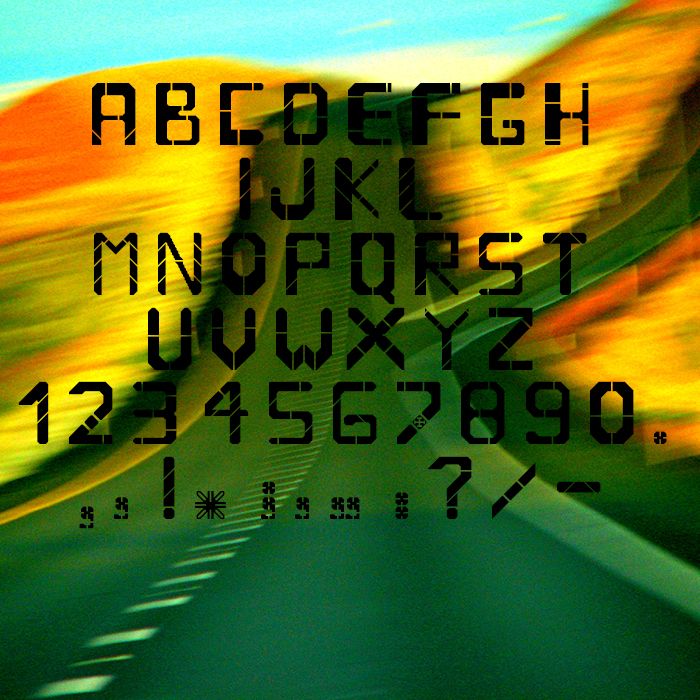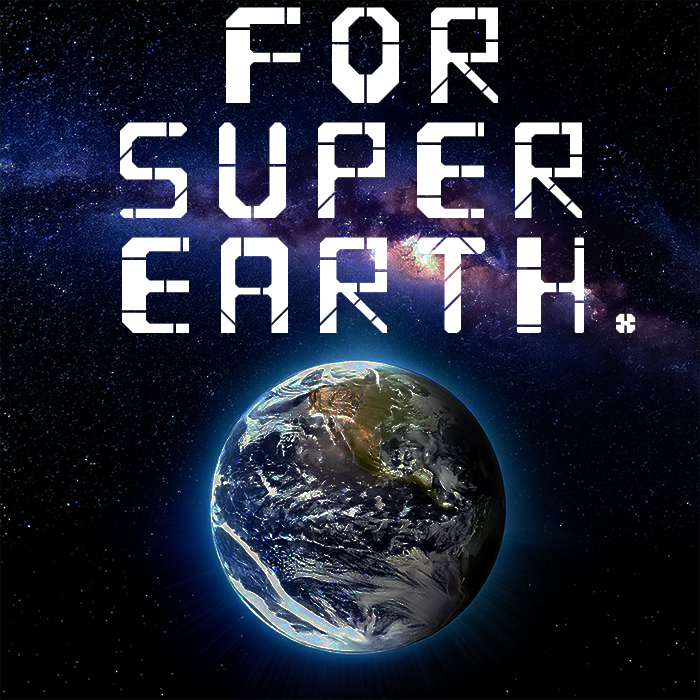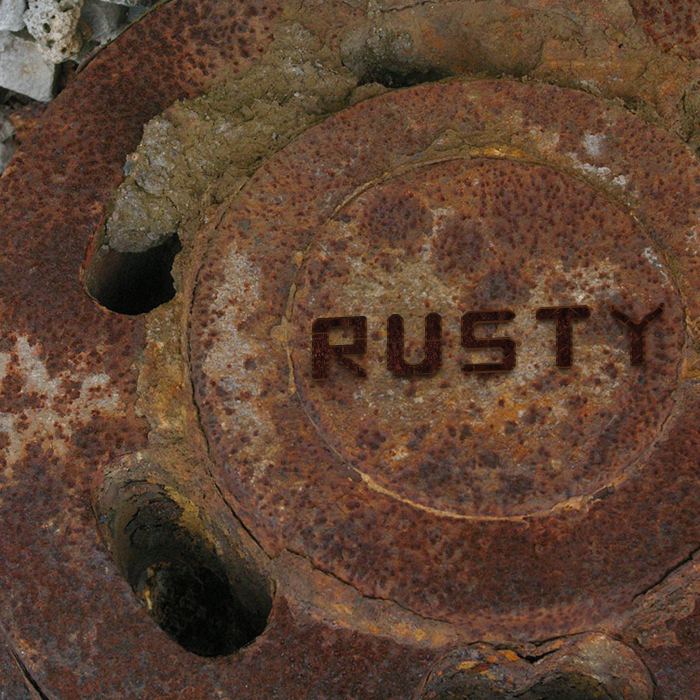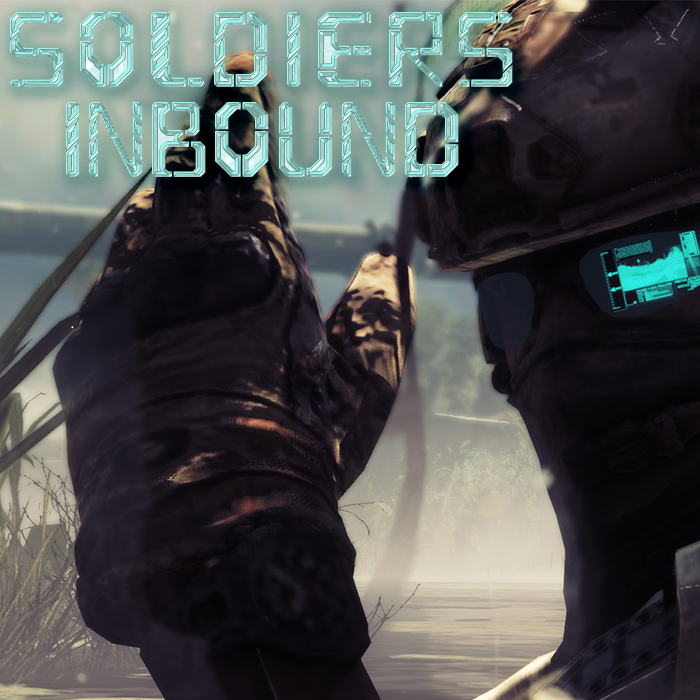
• This bold, heavy font combines strength and modernity with a distinctly futuristic edge. Each letter features asymmetrical bolding—where one side of the letter is heavier, such as the right side of 'A' and the left side of 'B'—creating a dynamic sense of movement. The design is further enhanced by sharp cuts and slices across the letters, giving them a fragmented and technological feel. Perfect for futuristic or fantastical scenarios, this font evokes a sense of advanced technology, cyberpunk aesthetics, and a world beyond reality. It's ideal for science fiction projects, video game designs, or any creative endeavor that pushes the boundaries of imagination.